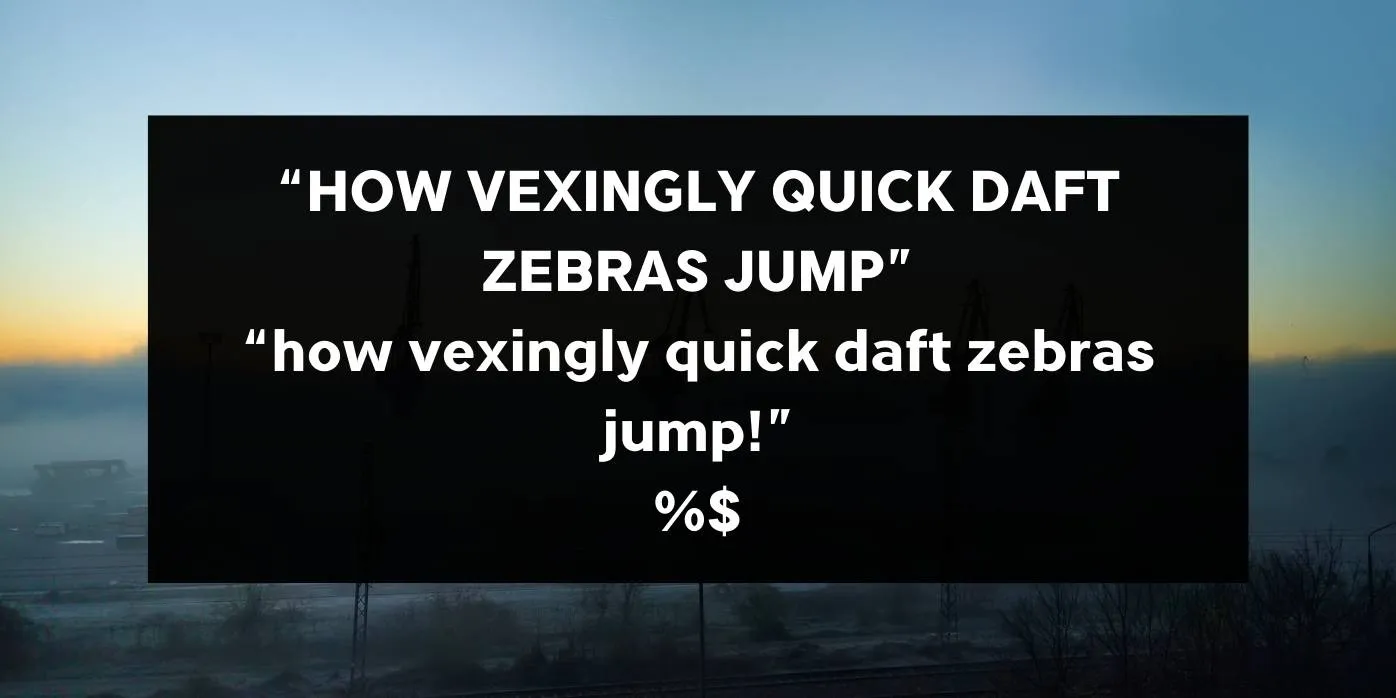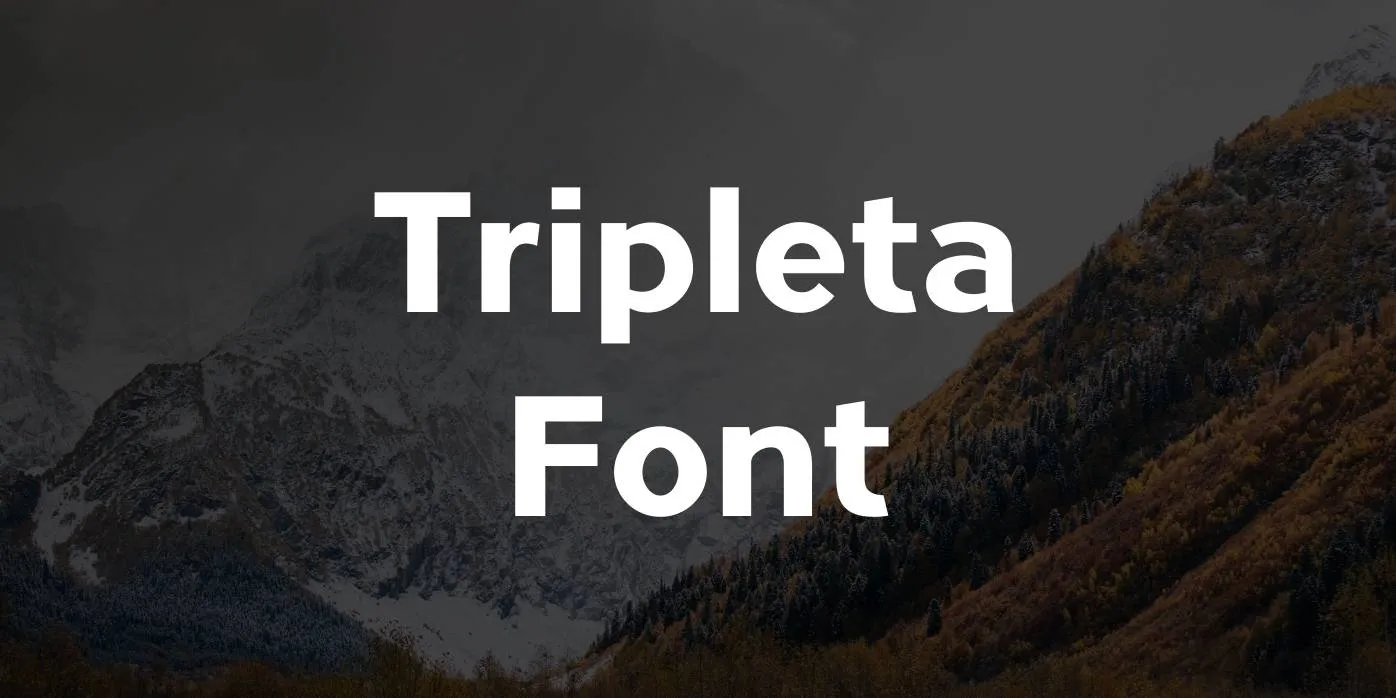
Tripleta Font
Tripleta Font is a sans serif typeface that was created by Spanish graphic designer Alejandro Paul in 2013. The font takes inspiration from the Futura and Avant Garde typefaces, as well as from geometric sans serifs such as Kabel and DIN. This font is available in nine weights, from Ultra Light to Bold, with corresponding oblique versions. Alejandro Paul is a typeface designer from Spain.
He is the founder of Sudtipos, a digital-type foundry based in Buenos Aires, Argentina. His fonts include Aguafina Script, Buena Onda, and Piel Script. You can also try the segoe ui font in your specific designs that have amazing powerful characters and a paired nature. This font glyph is comprised of basic geometric shapes.
The main aim of creating this font that is to give a new and modern look to the sans serif typeface family. And this font specially designs for web designing and print media. This is due to its clean and sharp appearance.